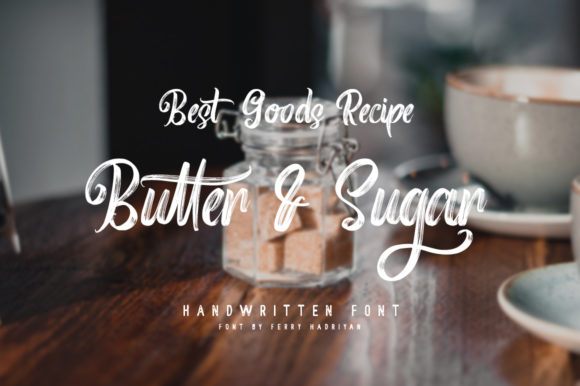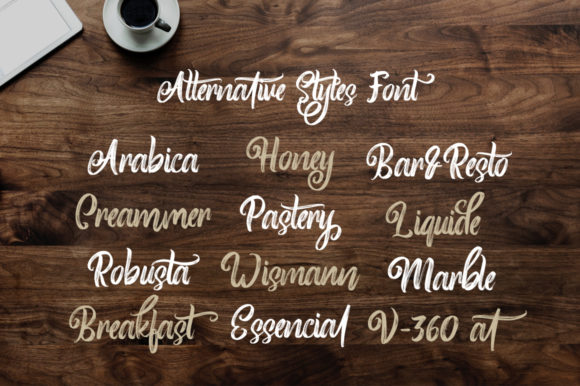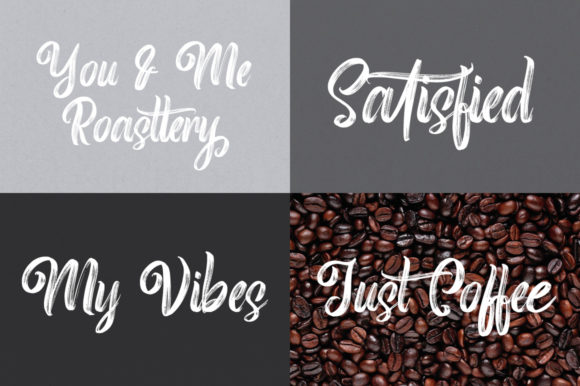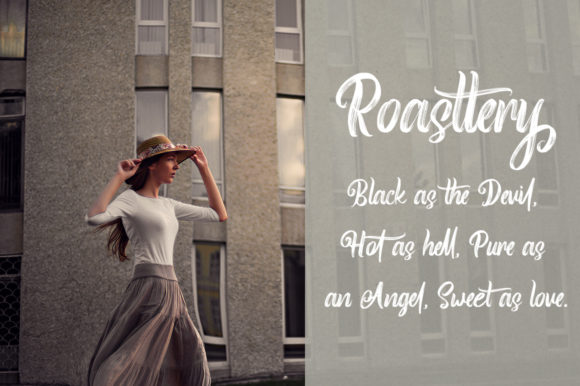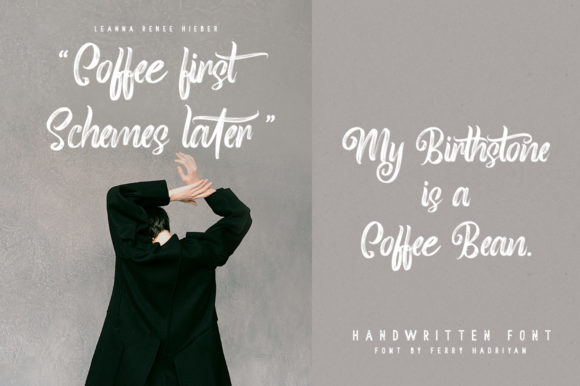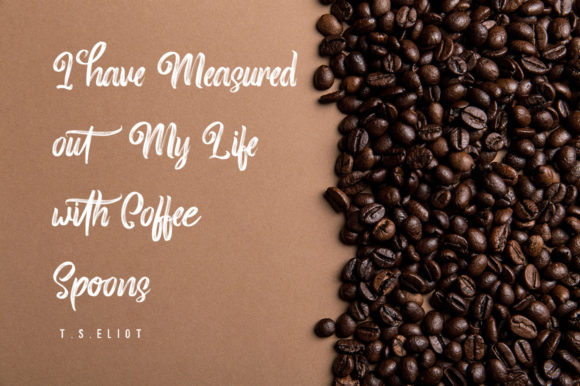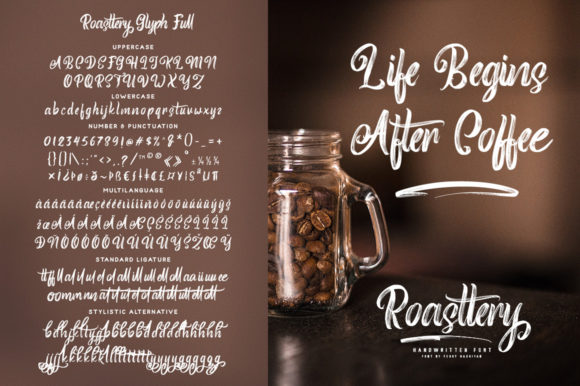
HomeScript FontsRoasttery Font Script Fonts Roasttery Font FacebookXPinterestWhatsApp Roasttery Font Poster 2 Roasttery Font Poster 3 Roasttery Font Poster 4 Roasttery Font Poster 5 Roasttery Font Poster 6 Roasttery Font Poster 7 Roasttery Font Poster 8 Roasttery Font Poster 9 About Roasttery Font Roasttery is a sweet and fun script with a unique look. Get inspired by its romantic lettering and smooth style. DOWNLOAD ON CREATIVE FABRICAThis font is sold and delivered by Creative Fabrica. Font Canyon may earn a commission if you buy through this link. People also explored Welcome 2021 Font Meriposa Font Scotch Argus Font Hello Dude Font School Font Grotte Font Home School Font Sfattii Font Building Friendship Font 350 0 TagsRoasttery Font Previous articleThe Strength FontNext articleHilliard Font LEAVE A REPLY Cancel reply Comment: Please enter your comment! Name:* Please enter your name here Email:* You have entered an incorrect email address! Please enter your email address here Website: Save my name, email, and website in this browser for the next time I comment. Personal Use Free Short Message Personal Use Free Read more about this font Cheque Personal Use Free Read more about this font Hair Thinned Personal Use Free Read more about this font Vanilla Whale Personal Use Free Read more about this font BLOG Fonts That Capture the Spirit of New York City New York City is more than just a place—it’s an experience, a rhythm, a visual language... Elegant Wedding Invitation Fonts – Handwritten & Script Fonts The 10 Best Handwriting Fonts to Add Personality to Your Designs Modern Sans-Serif Fonts That Brands Love in 2025